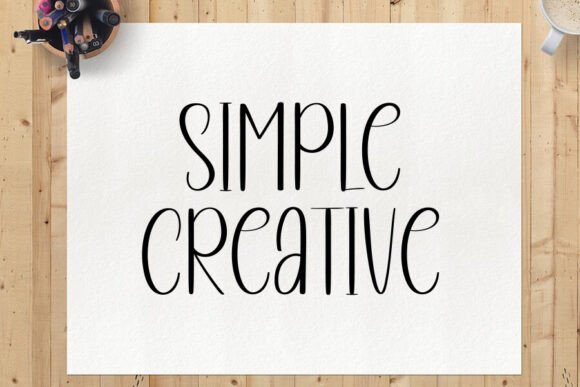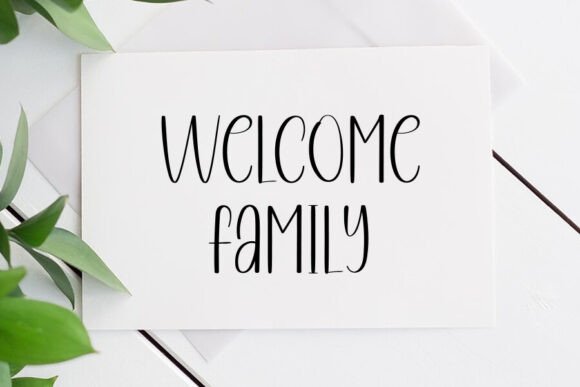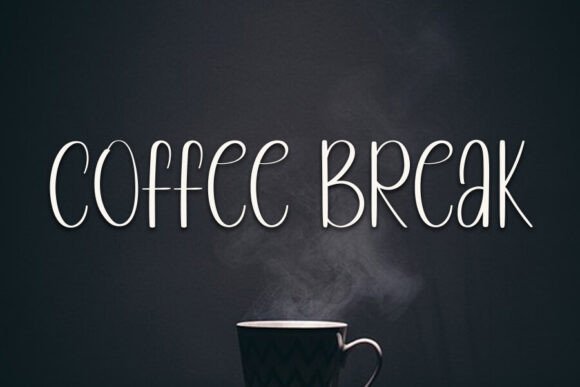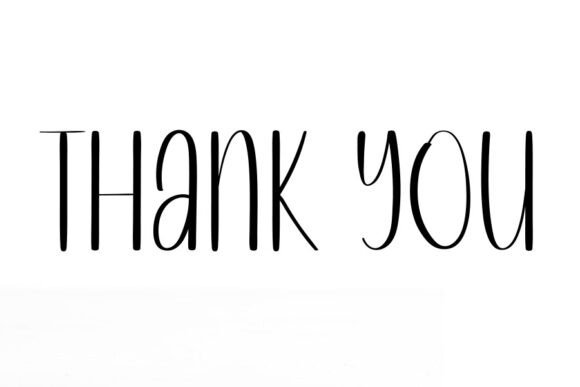
Introducing Challenge Font: The Simple Handwritten Font for Your Creative Projects
Are you looking for a font that can add a personal touch to your designs? Look no further than Challenge Font, a simple handwritten font that is versatile and easy to use. In this article, we’ll explore the features and benefits of Challenge Font, and show you how it can elevate your creative projects.
What is Challenge Font?
Challenge Font is a beautifully crafted handwritten font that is designed to add a simple and natural feel to your designs. Its unique charm and character make it perfect for a wide range of applications, from greeting cards and invitations to headlines and titles.
Key Features of Challenge Font
- Simple and Handwritten: Challenge Font has a simple and handwritten style that gives it a personal and approachable feel.
- Versatile: This font is highly versatile and can be used for a wide range of applications, from digital designs to print materials.
- Easily Readable: Challenge Font is clear and easy to read, making it perfect for body text and headlines.
- Unique Character: This font has a unique character that sets it apart from other fonts, making it perfect for designers who want to add a personal touch to their designs.
Benefits of Using Challenge Font
So why should you use Challenge Font for your creative projects? Here are just a few benefits:
- Adds a Personal Touch: Challenge Font adds a personal touch to your designs, making them more relatable and engaging.
- Highly Versatile: Challenge Font can be used for a wide range of applications, from digital designs to print materials.
- Stand Out from the Crowd: With its unique character and simple handwritten style, Challenge Font can help your designs stand out from the crowd.
Creative Ways to Use Challenge Font
Challenge Font is a versatile font that can be used in a variety of creative ways. Here are a few ideas to get you started:
- Greeting Cards: Use Challenge Font to create personalized greeting cards for special occasions.
- Headlines and Titles: Use this font to add a simple and natural feel to your headlines and titles.
- Invitations: Challenge Font is perfect for creating invitations for weddings, parties, and other special events.
- Digital Designs: Use this font to add a personal touch to your digital designs, such as social media graphics and blog posts.
Tips for Using Challenge Font
Here are a few tips for using Challenge Font in your designs:
- Use it with Images: Challenge Font looks great when paired with images, especially those with a natural or rustic feel.
- Experiment with Colors: Try using Challenge Font with different colors to add depth and interest to your designs.
- Keep it Simple: Challenge Font is a simple font, so keep your designs simple and clean to let the font shine.
Challenge Font is a simple handwritten font that is perfect for designers and crafters who want to add a personal touch to their creative projects. With its versatile style and easy-to-use features, Challenge Font is sure to become a favorite in your design toolkit. So why wait? Download Challenge Font today and start creating beautiful, simple designs that stand out from the crowd!